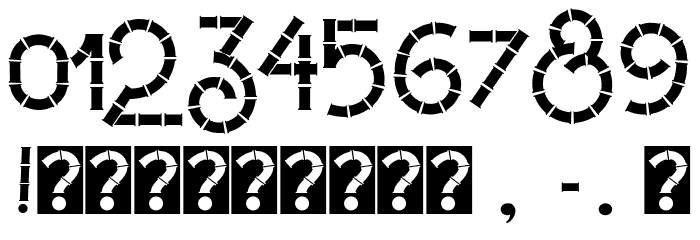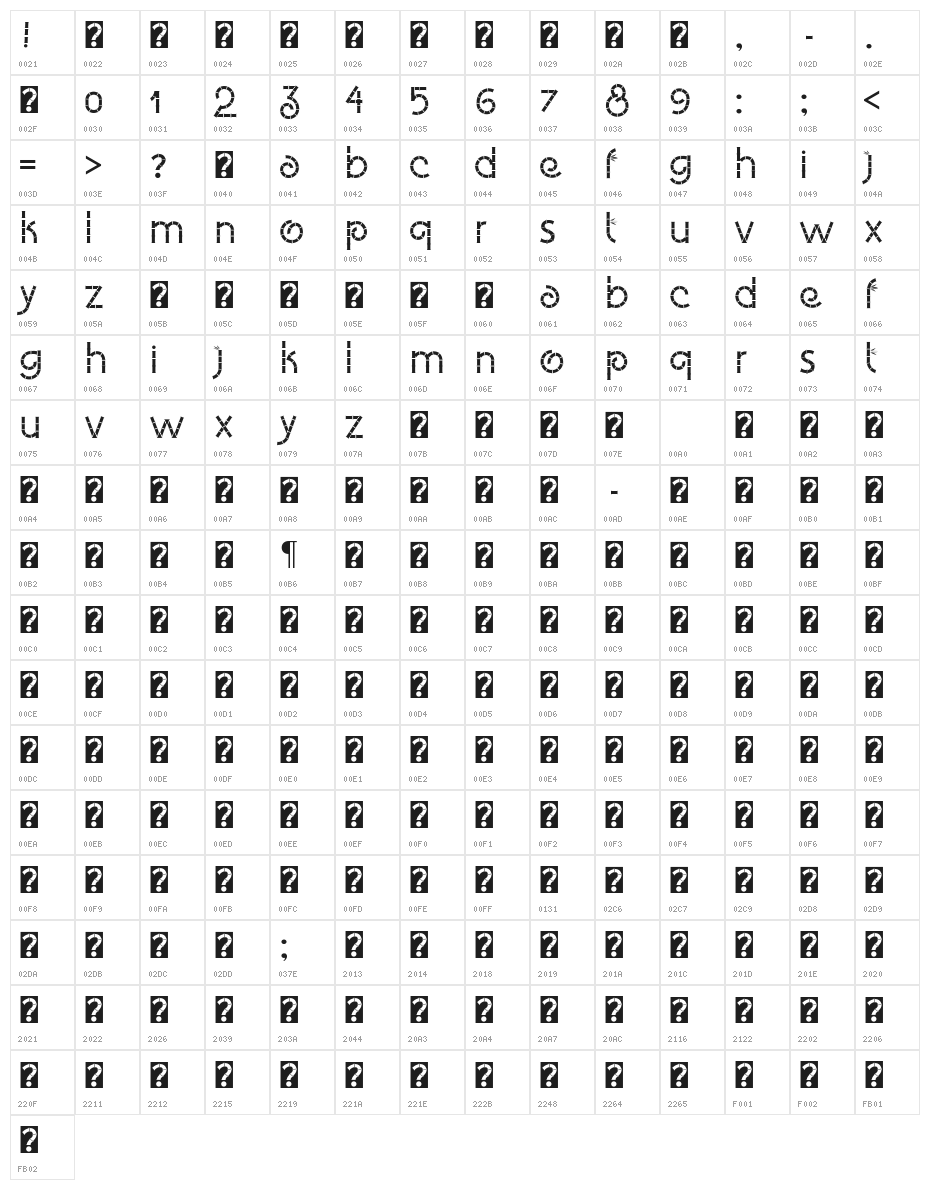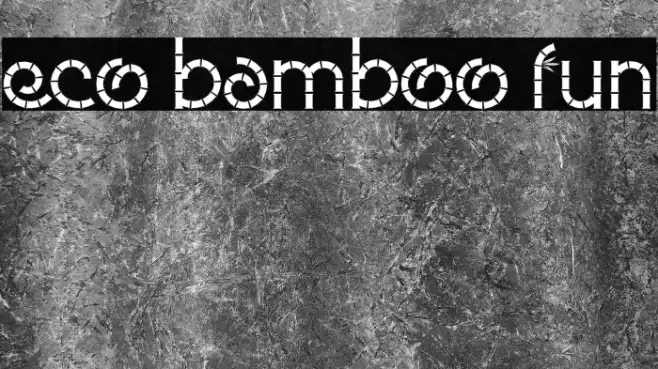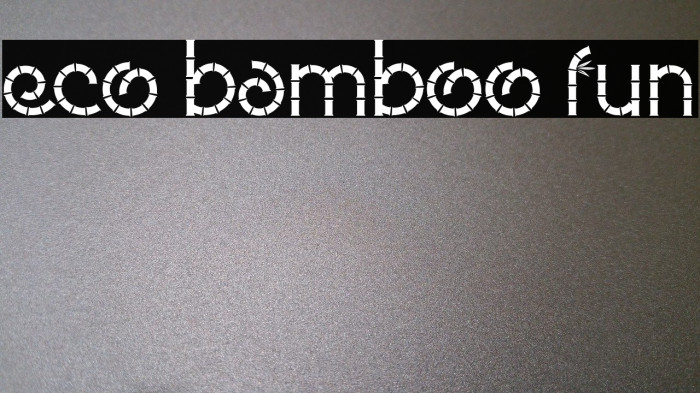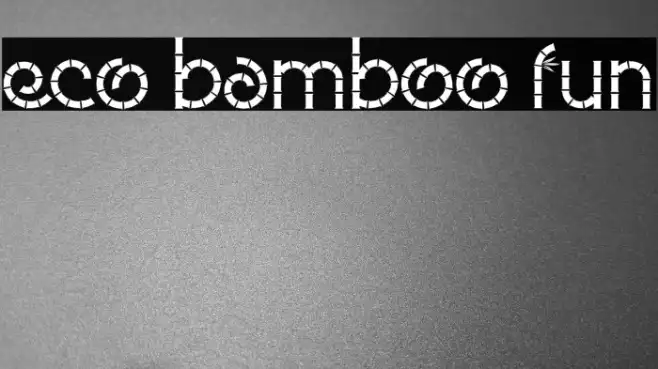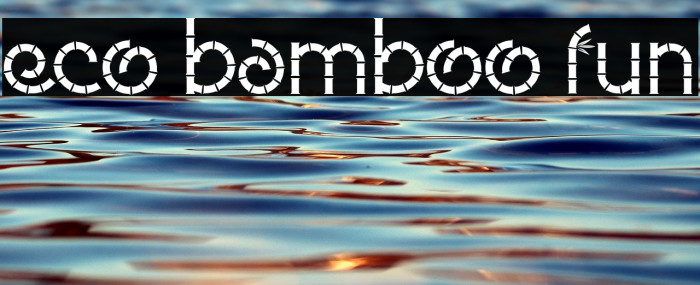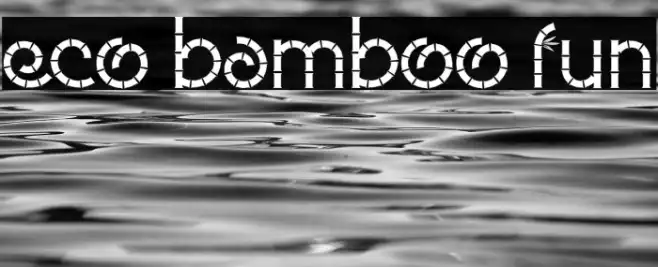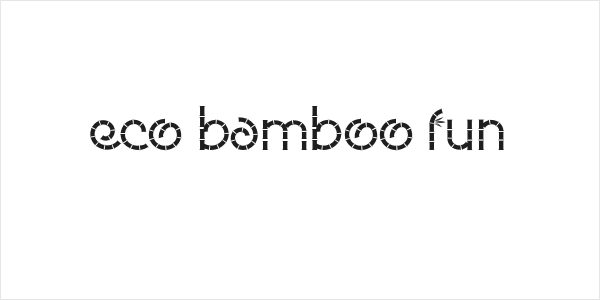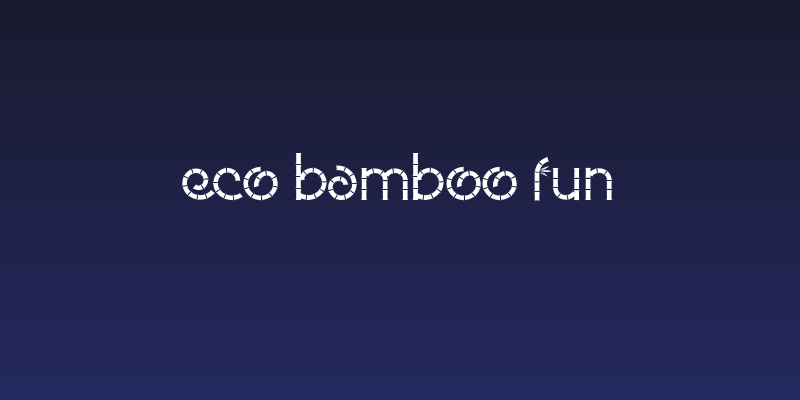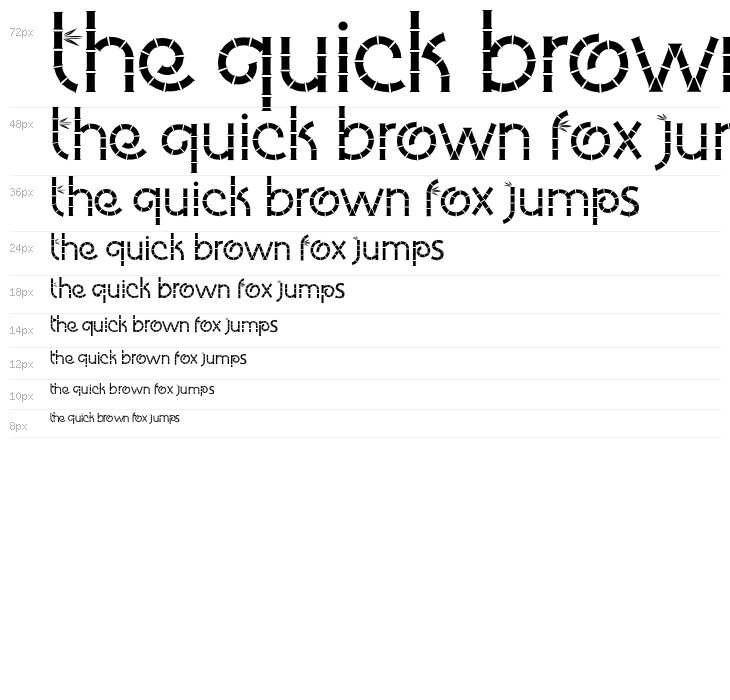
Eco Bamboo Fun Font
Eco Bamboo Fun Description
This font features a unique, eco-friendly design inspired by bamboo structures. Each character is composed of segmented lines that mimic the appearance of bamboo stalks, creating a natural and organic aesthetic. The font maintains a consistent thickness throughout, with rounded edges that soften the overall look. The playful and innovative style makes it stand out, while the geometric arrangement of the segments ensures readability. This font is ideal for projects that aim to convey an environmentally conscious message or a connection to nature. Its distinctive appearance can add a touch of creativity and uniqueness to any design.
| Use Case | Logos, Posters, Headlines |
| Proposed Projects | Eco-friendly branding, nature-themed posters, children's books, environmental campaigns. |